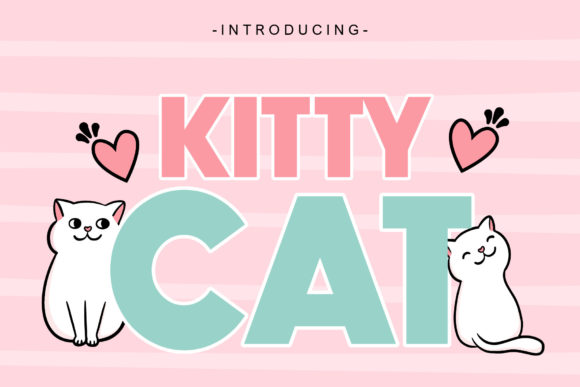
Welcome to the world of Kitty Cat Font, the most captivating sans-serif font that will awaken your inner child with its vibrant and playful personality. Step into a realm of boundless creativity, where words dance with charm, and designs shimmer with joy. Let Kitty Cat Font ignite your imagination and transform your projects into masterpieces that exude happiness and delight.
With Kitty Cat Font as your trusty companion, crafting projects becomes an enchanting adventure. Dive into a world of endless possibilities, where you can create logos that pop, website designs that captivate, and greeting cards that bring smiles to faces. Unleash your inner artist and let your creativity soar as you design invitations that sparkle with charm, presentations that leave a lasting impression, and social media posts that shine with uniqueness.
Embrace the magic of Kitty Cat Font and watch as your creations come alive with personality. Its playful nature will capture hearts, leaving an unforgettable mark on all who encounter it. So embrace the joy, spark your imagination, and unlock the endless creative possibilities that await you with Kitty Cat Font.